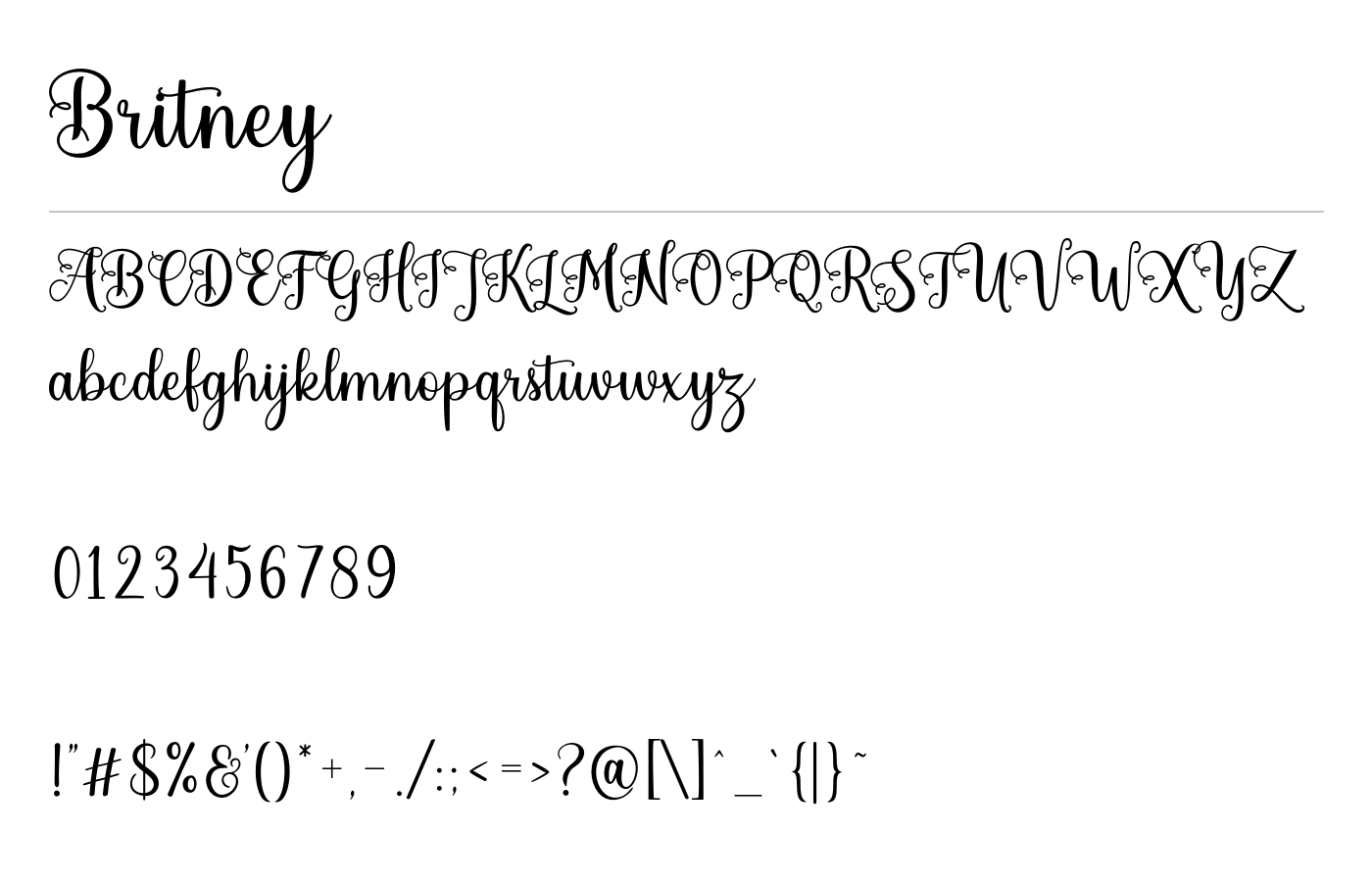
Britney is an elegant script font featuring delicate and flowing letterforms with decorative swirls in its uppercase characters, creating a graceful and feminine feel. Its slender weight and tall x-height lend a refined, airy quality that works beautifully in branding, invitations, and headlines where a stylish, sophisticated look is desired. This font combines charm and readability, making it ideal for fashion, luxury, or creative projects seeking a personable yet polished touch.
Britney Font
About Britney Font